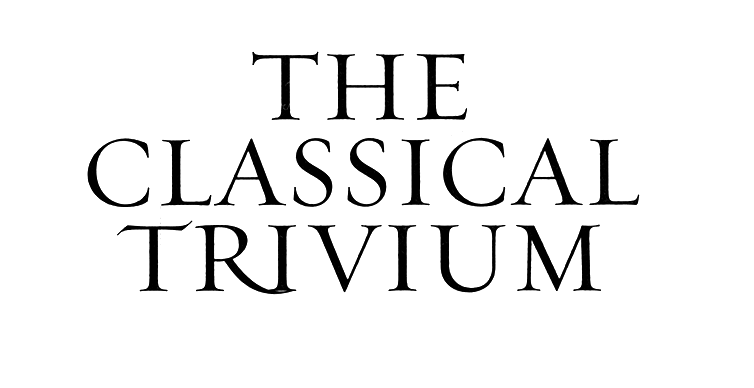
I'm trying to identify this font used on the cover of Marshall McLuhan's "The Classical Trivium" which was published by Gingko Press in or around 2011. Proportions and details aren't quite right for current versions of Trajan so this is something else but I'm at a loss to ID it. Any help is much appreciated!
It’s Requiem Text.
The T and R of “TRIVIUM” are alternate characters.